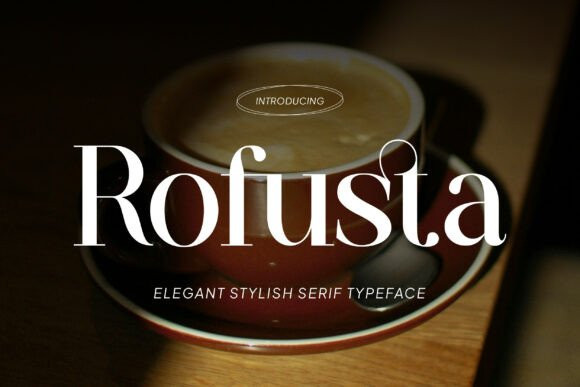
Rofusta Font
Rofusta Font is a refined serif font that blends timeless elegance with a modern, stylish touch. Designed to elevate your creative projects, Rofusta features graceful curves, sharp serifs, and beautifully balanced letterforms that exude sophistication and charm.